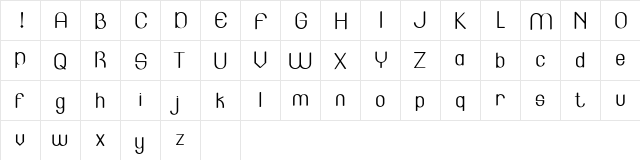
Lincoln - Regular
Design Context for Lincoln - Typeface
Lincoln - offers clean, dependable letterforms without strong stylistic allegiance, making it a practical choice for designers who need flexibility.